Choosing the best sans serif fonts for luxury hotel branding can help designers solve one important visual problem: making a hotel brand look modern, premium, and trustworthy without feeling cold or too plain. Luxury hotels need typography that communicates comfort, elegance, service quality, and attention to detail. However, not every clean font can create a high-end impression.
Many hotel brands use beautiful photography, elegant interiors, and soft color palettes, but their typography still feels generic. A font that is too basic may make the brand look ordinary. A font that is too decorative may reduce readability on websites, brochures, menus, booking pages, and signage.
Sans serif fonts are a strong choice for hospitality branding because they are clean, versatile, and easy to read. When chosen carefully, they can make a luxury hotel feel refined, modern, and memorable.
Recommended Sans Serif Fonts for Luxury Hotel Branding
Below are font recommendations that can support different luxury hotel brand directions.
1. Berlyna
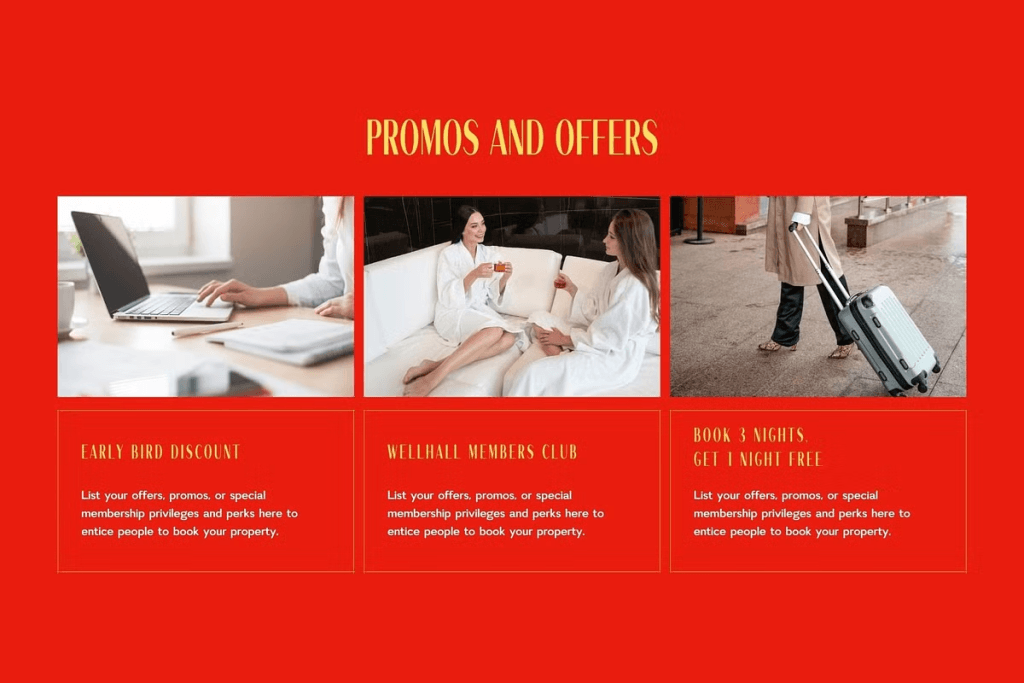
2. Jochepine
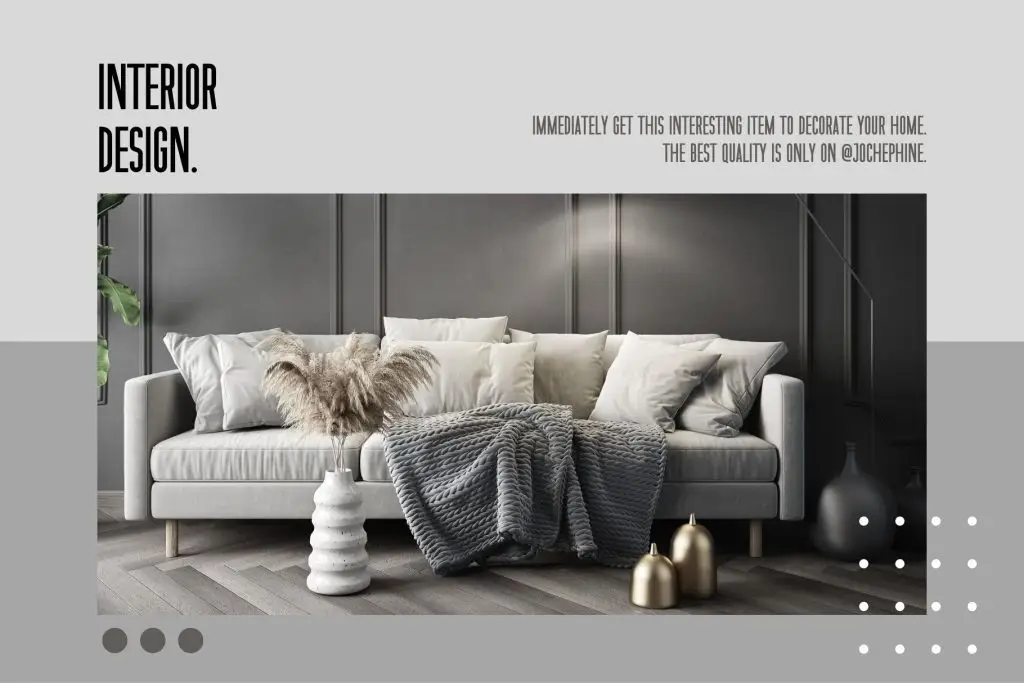
3. Maktron
4. Reghita
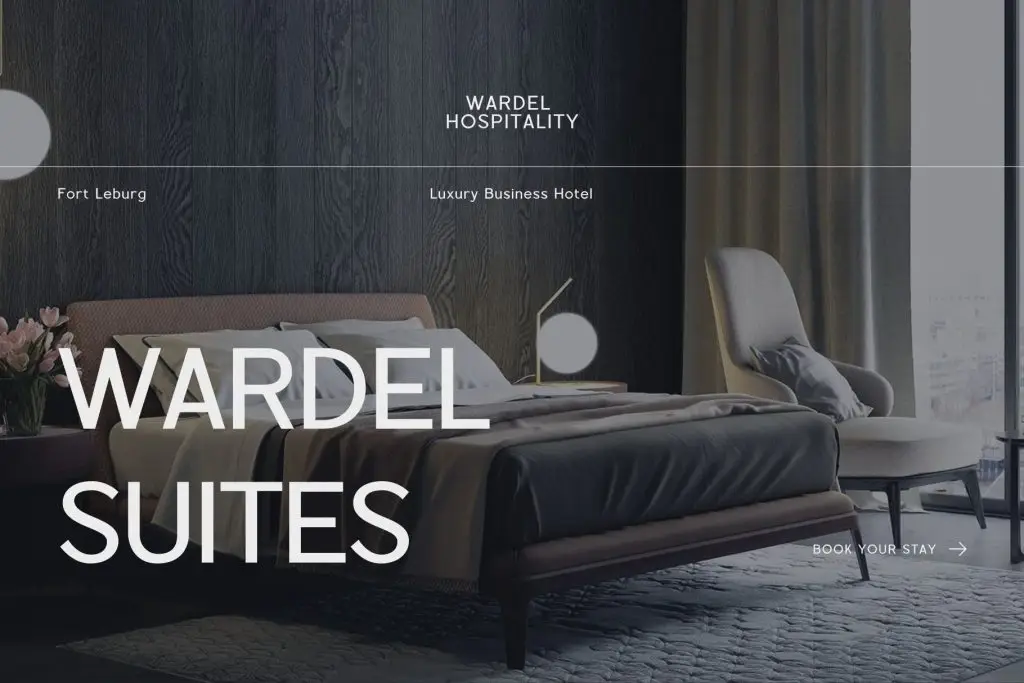
5. Tracey Jodgey
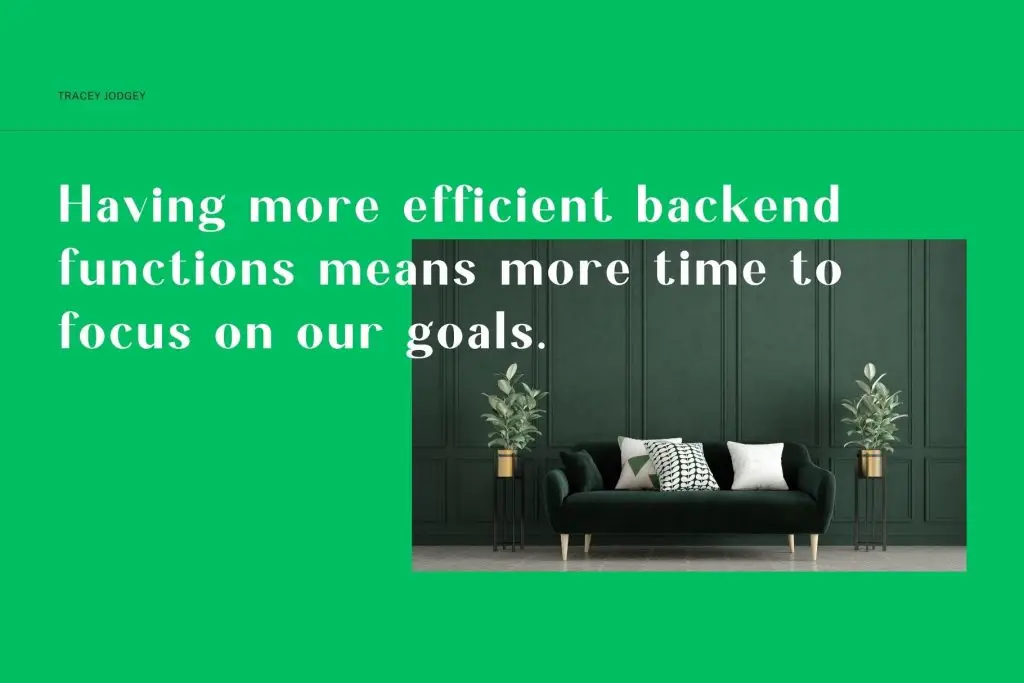
Best Use Case for Luxury Hotel Sans Serif Fonts
Hotel Logo and Brand Identity
A hotel logo should feel memorable and easy to recognize. Berlyna and Maktron can work well for logo concepts because they feel confident, clean, and professional. For a softer luxury direction, Jochepine can create a more graceful impression.
Website and Booking Pages
Hotel websites must be beautiful and functional. Guests need to read room details, amenities, prices, policies, and booking buttons easily. Use clear sans serif fonts for navigation, body text, and calls to action.
Digital Readability Matters
A luxury website should not sacrifice clarity for style. Good typography helps users browse comfortably and make booking decisions with confidence.
Brochures and Guest Materials
Hotel brochures, welcome cards, spa menus, and restaurant menus need typography that feels elegant but remains practical. Reghita and Berlyna can support polished layouts, while Maktron can help create stronger section titles.
Signage and Wayfinding
Readable signage is essential in hospitality. Guests should be able to find rooms, elevators, restaurants, lounges, and event spaces easily. Use fonts with clear letterforms and strong spacing for signs.
Social Media and Promotions
Hotels often promote seasonal offers, staycation packages, wedding events, and dining experiences through social media. Tracey Jodgey and Reghita can add personality to short headlines, while cleaner fonts should support details and pricing.
Tips for Implementation
Use Elegant Spacing
Spacing can make a sans serif font feel more luxurious. Give headlines room to breathe. Use enough line spacing in paragraphs and avoid crowded layouts.
White Space Creates Premium Mood
Luxury design often feels expensive because it is not overloaded. White space allows photography, typography, and brand details to feel intentional.
Build a Simple Font System
A hotel brand does not need many fonts. Use one main font for headlines and one supporting font for body text. This keeps the visual identity consistent across websites, brochures, signage, and social media.
Match Font Personality with Hotel Positioning
A wellness resort may need soft and calm typography. An urban hotel may need structured and bold typography. A boutique hotel may need something more stylish and memorable. Choose the font based on the guest experience you want to communicate.
Prioritize Readability
Luxury branding should still be easy to understand. Avoid using highly expressive fonts for long service descriptions or important booking information. Use decorative or distinctive styles only for short headlines, campaign titles, or brand accents.
Conclusion
Choosing the best sans serif fonts for luxury hotel branding can help designers create hotel identities that feel modern, elegant, and easy to trust. Sans serif fonts are valuable in hospitality because they combine clarity with flexibility.
Fonts like Berlyna, Jochepine, Maktron, Reghita, and Tracey Jodgey each offer a different mood for hotel branding. Some feel calm and refined, while others feel bold, stylish, or contemporary.
By using elegant spacing, building a simple font system, matching typography to hotel positioning, and prioritizing readability, designers can create luxury hotel branding that feels polished and guest-friendly. The right sans serif font does more than display information. It helps guests feel the quality of the hotel before they even arrive.